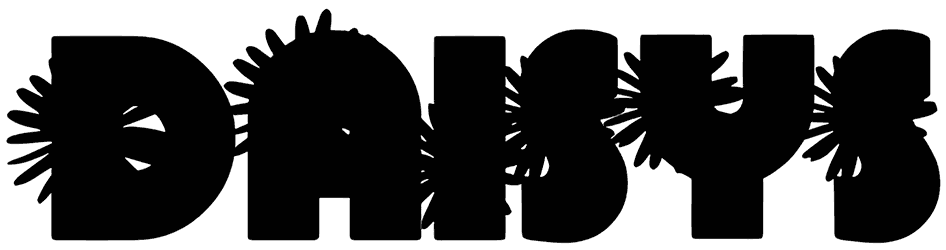
Daisys Font
With the blessing of this flower font, bring the enjoyment of exhibiting lifelike designs from anything. Create your typography designs and push a playful, fancy setup with the help of this Daisys font.